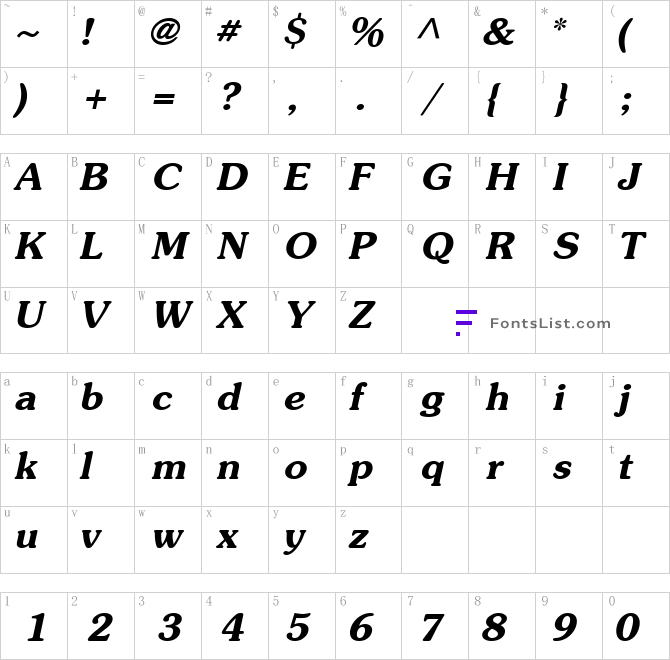
- Font Name:AG_Souvenir
- Subfamily:FontMonger:AG_Souvenir Bold Italic
- Full Name:AG_Souvenir Bold Italic
- PostScript:AGSouvenirBoldItalic
AG_Souvenir-Bold-Italic.ttf is a very beautiful artistic font, AG_Souvenir-Bold-Italic.ttf is widely used in the design and printing of various books and pictures,AG_Souvenir-Bold-Italic.ttf has a strong visual impact,AG_Souvenir-Bold-Italic.ttf is a commonly used font in newspapers, magazines and books, and is used in posters, e-commerce Poster design, store design, logo design, font design and other fields.AG_Souvenir-Bold-Italic.